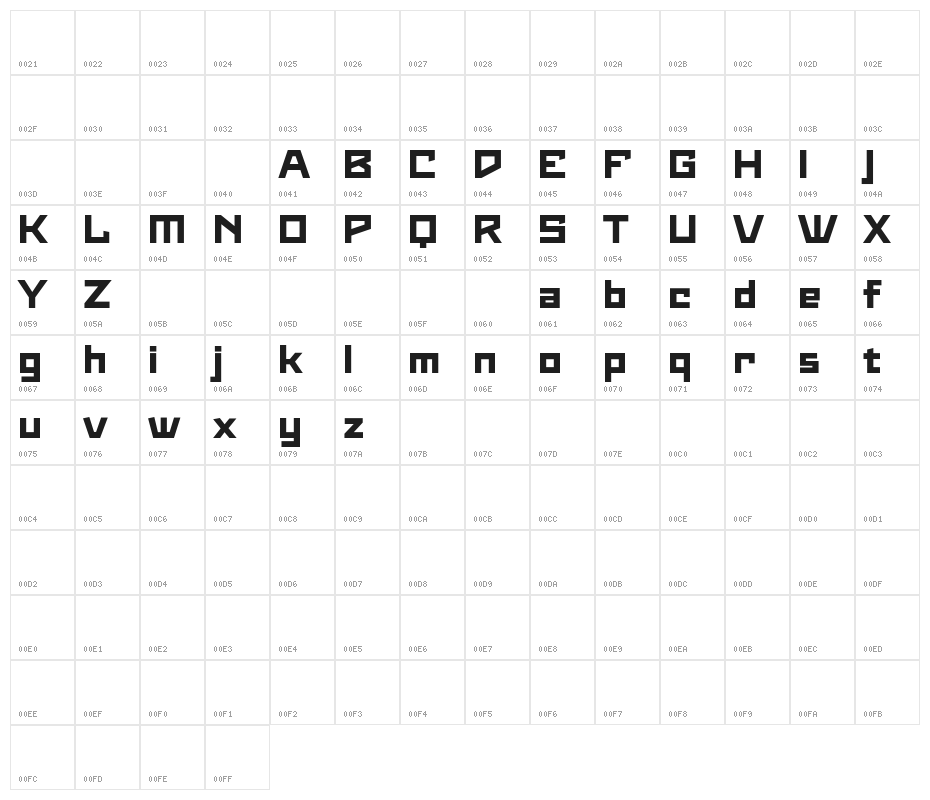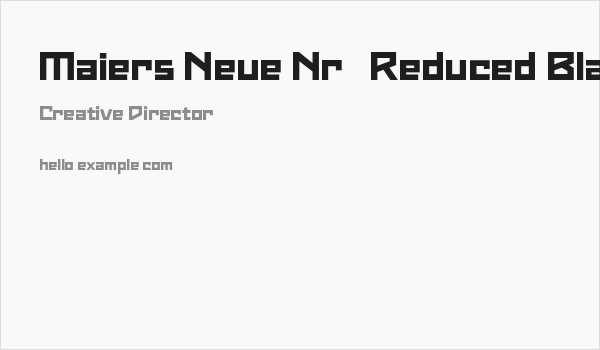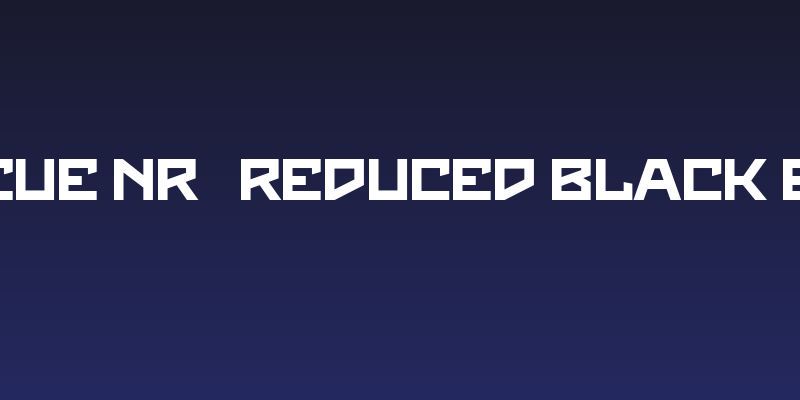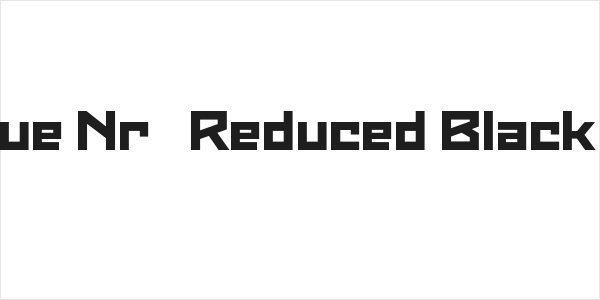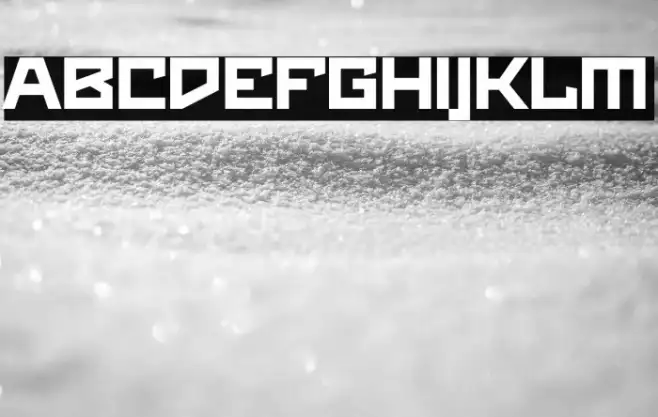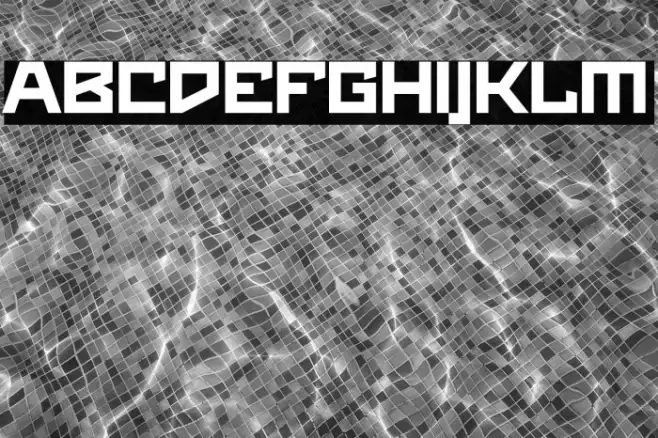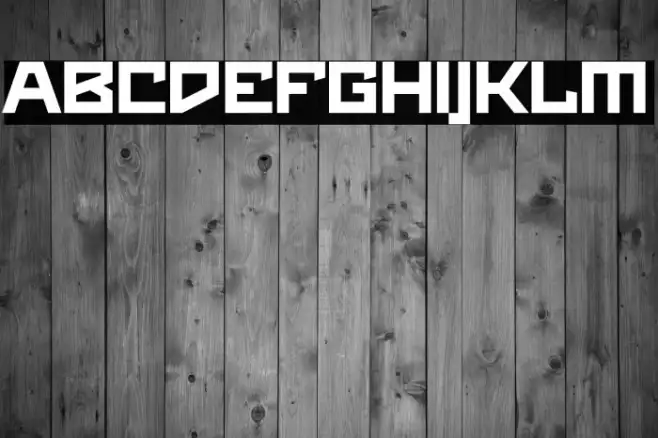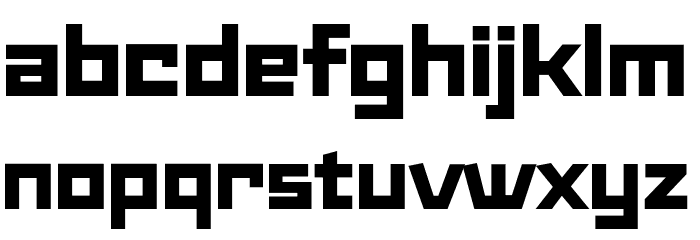
Maiers Neue Nr.8 Reduced Black Expanded Font
Maiers Neue Nr.8 Reduced Black Expanded Description
This font features a bold and geometric design, characterized by its strong, angular lines and block-like structure. The uppercase letters exhibit a uniform height with sharp corners, giving a modern and industrial feel. The lowercase letters maintain the same geometric style, ensuring consistency throughout the typeface. The numbers and special characters are designed to match the boldness and angularity of the alphabet, making them stand out with clarity. The overall appearance is striking and impactful, suitable for attention-grabbing headlines or branding that requires a modern, assertive look.
| Proposed Projects | Ideal for branding, headlines, posters, and any design requiring a strong, modern aesthetic. |